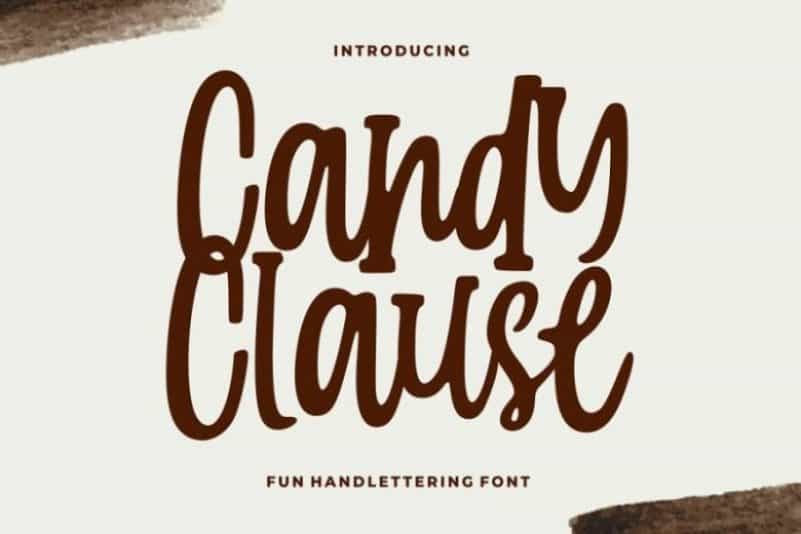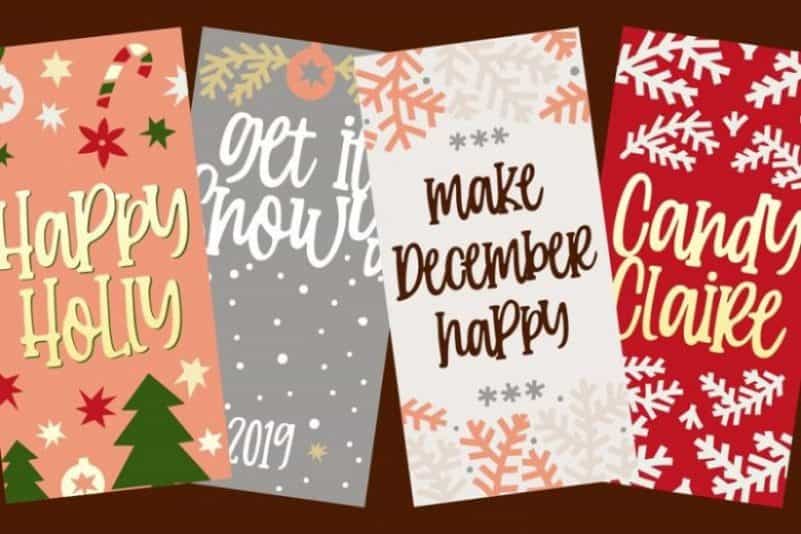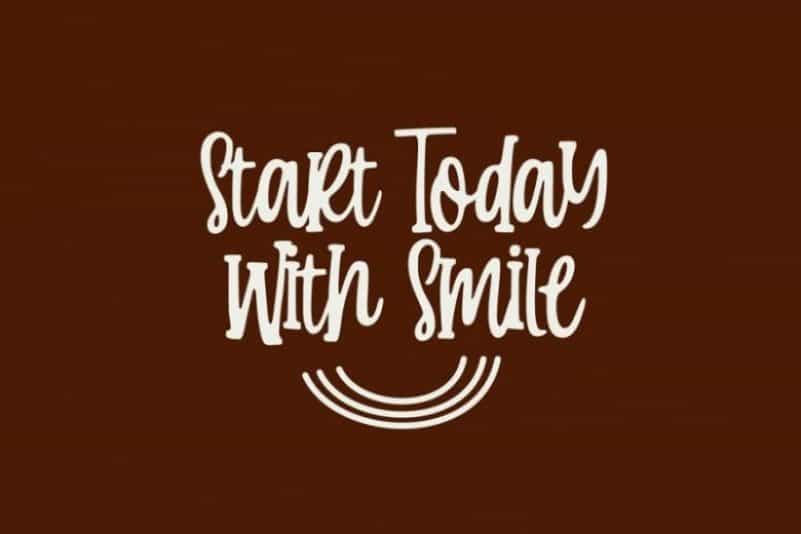
Candy Clause Font is the best unique and funny display font that is new to the market. This font is simple and unpretentious, but at the same time it is bold, cute, firm and trendy. Highly relevant for your diverse design requirements that are in demand these days.